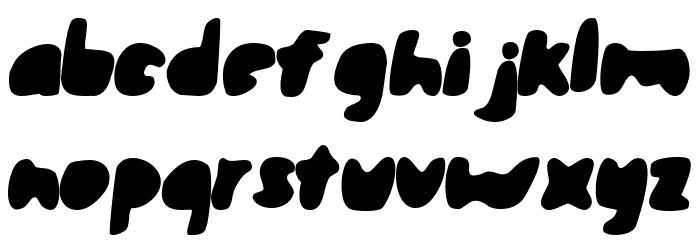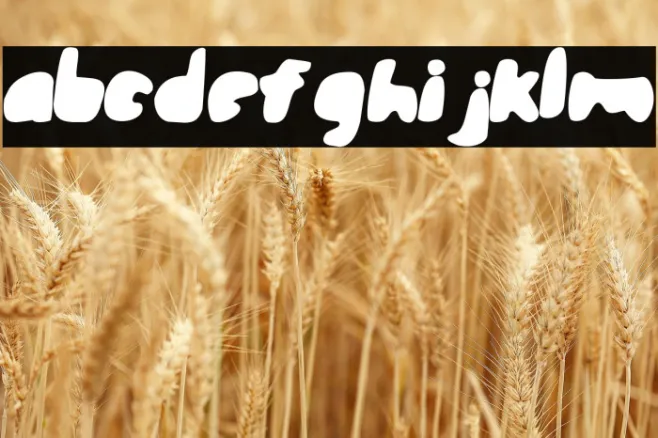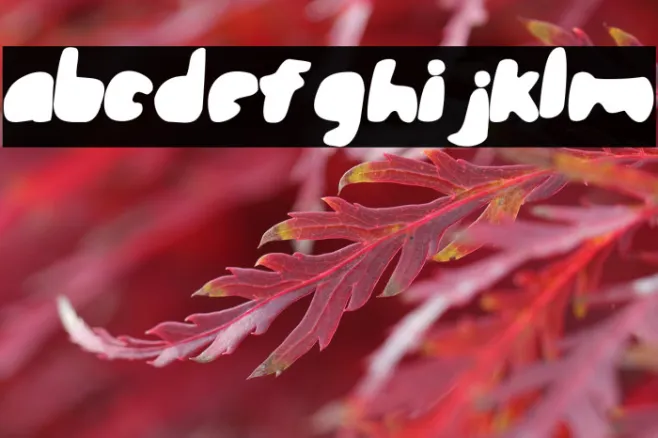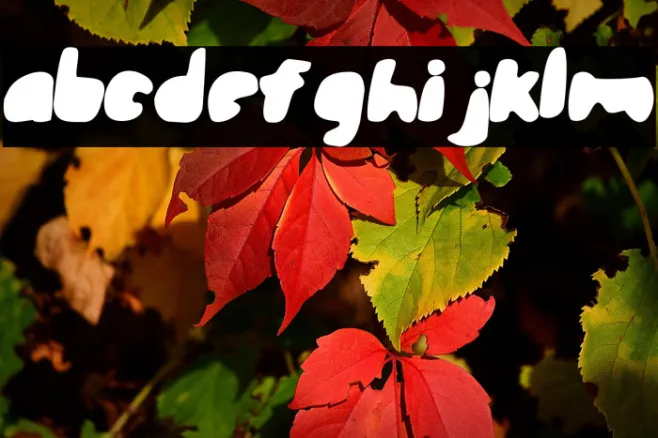
steamroller Font
This font features a bold and playful style with rounded, smooth edges that give it a friendly and approachable appearance. The characters are thick and have a slightly irregular shape, adding a whimsical touch to the overall design. The lowercase letters are consistent in height, contributing to a harmonious flow across words. The absence of uppercase letters and numbers suggests a focus on informal, casual communication. This font is ideal for projects that require a fun and engaging aesthetic, such as children's books, playful branding, or creative posters.
A bold, playful font with rounded, smooth edges and a whimsical style.
- Font: steamroller
- Proposed Projects: Children's books, playful branding, creative posters, informal invitations.
- Overall Style: Playful, Whimsical
- Use Case: Headlines, Logos, Informal text